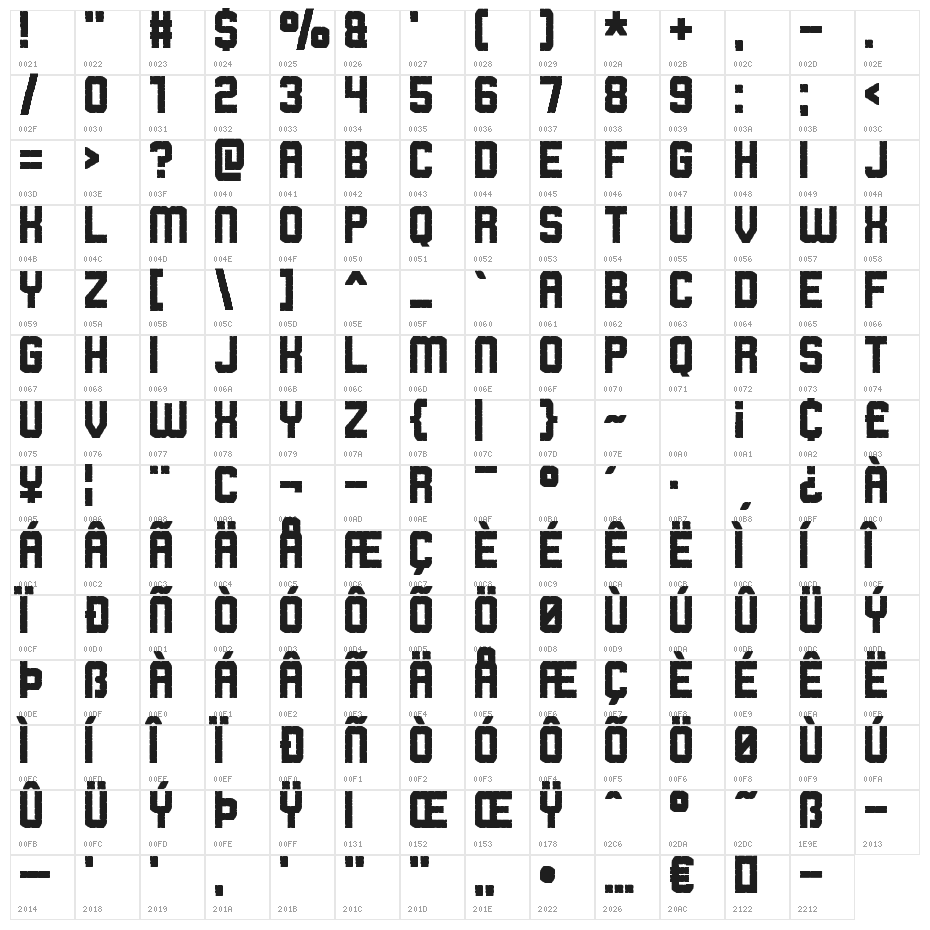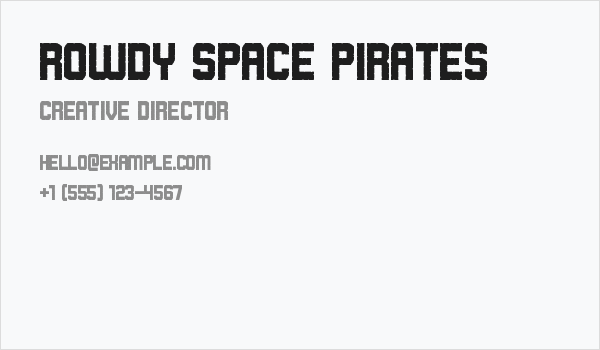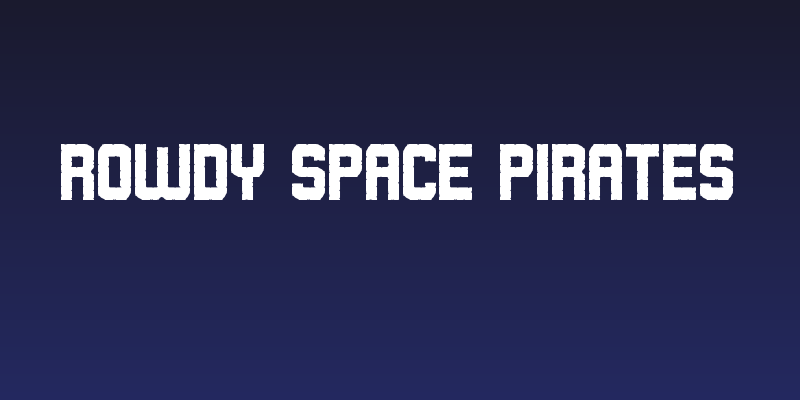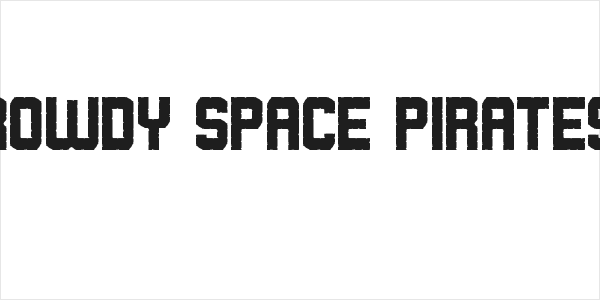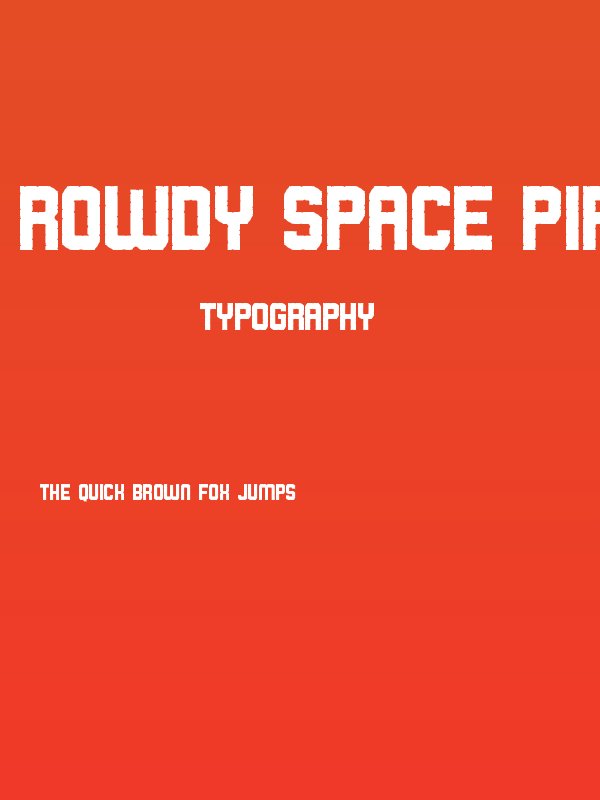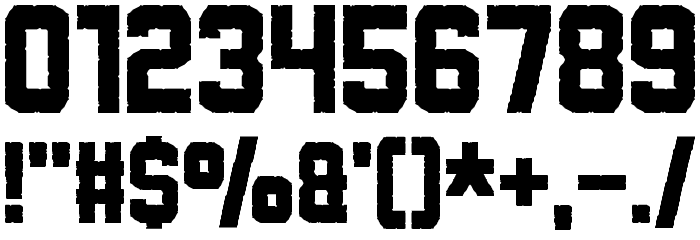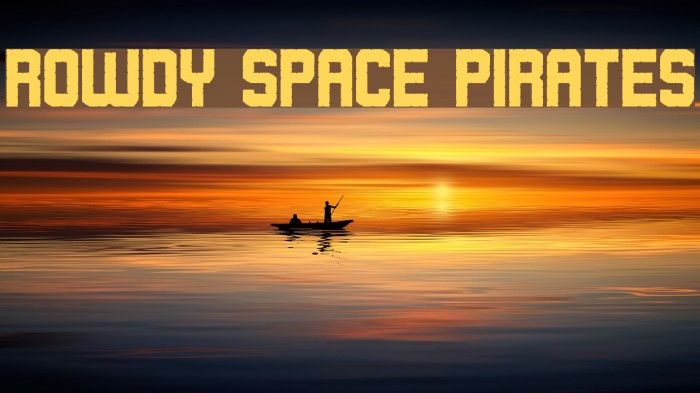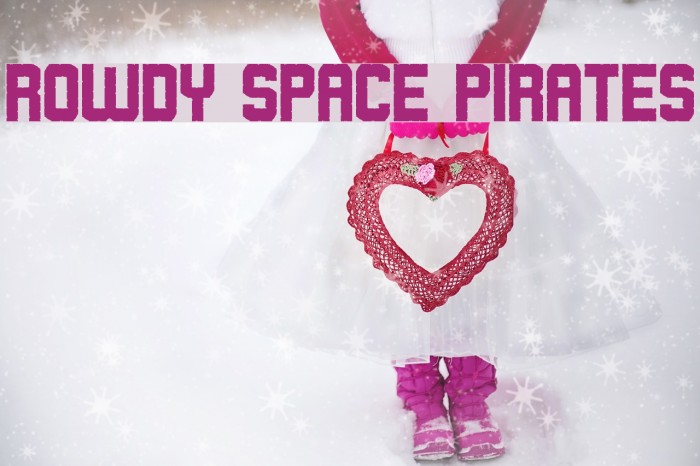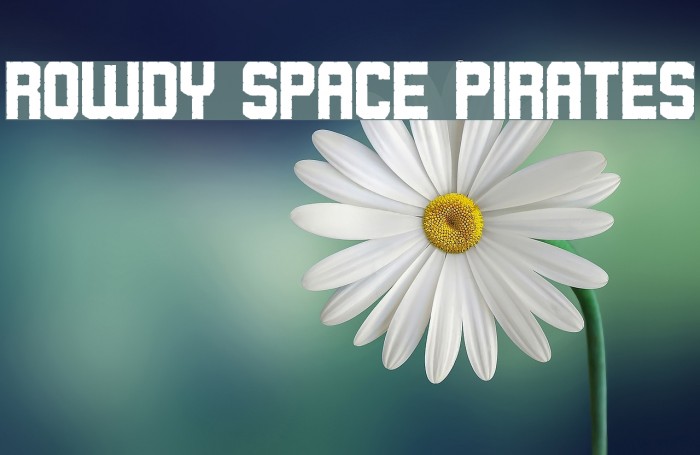
Rowdy Space Pirates Font
Rowdy Space Pirates Description
This font features a bold and rugged design, characterized by its blocky and angular letterforms. The edges are slightly distressed, giving it a gritty, industrial feel. The uppercase letters are uniform in height, while the numerals and special characters maintain the same boldness, ensuring consistency across all elements. The style is reminiscent of sci-fi or futuristic themes, making it ideal for projects that require a strong, impactful visual presence. The font's unique texture adds depth and character, making it stand out in any design.
| Overall Style | Futuristic, Industrial |
| Proposed Projects | Ideal for sci-fi themed posters, video game titles, or branding for tech and industrial companies. |